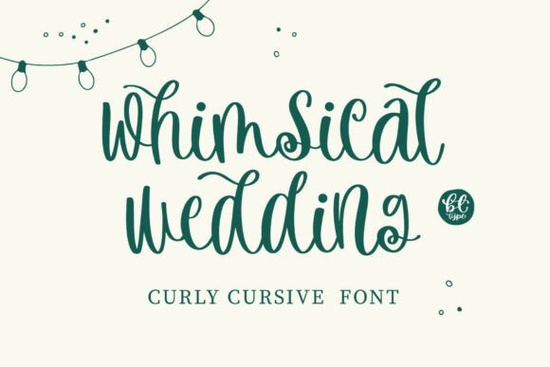
If you're working on wedding invitations, baby shower cards, or any design that calls for a cheerful, hand-lettered vibe, the Whimsical Wedding Font might be just what your project needs. This sweet cursive script blends playful energy with elegant curves think tight loops, bouncy letterforms, and terminals that curl like ribbons. It’s not overly formal, but it still feels special, making it ideal for joyful occasions where warmth and personality matter more than rigid tradition.
What sets this font apart is how effortlessly it adds charm without looking cluttered. The letters flow together naturally, mimicking real handwriting while remaining highly legible even at smaller sizes. That balance makes it especially useful for crafters creating printable stationery, small businesses designing custom greeting cards, or print-on-demand sellers building themed product lines.
Where does the Whimsical Wedding Font work best?
You’ll find this typeface shines in projects that celebrate life’s happy moments:
- Wedding stationery: From save-the-dates to place cards, its lighthearted flair complements modern rustic, boho, or garden-themed weddings.
- Baby announcements and nursery decor: The soft curves feel gentle and inviting perfect for welcoming little ones.
- Children’s books or party invites: Its bouncy rhythm reads as fun and friendly, not stiff or corporate.
- Handmade gift tags or DIY crafts: Pair it with watercolor illustrations or floral motifs for an extra touch of whimsy.
Because it includes PUA (Private Use Area) encoding, accessing swashes, alternates, and decorative glyphs is straightforward you won’t need special software or workarounds. Just open your design tool of choice, and those extras are ready to use.
How does it compare to other script fonts?
Not all cursive fonts strike the same tone. If you’ve used something like the Elegant Wedding Font, you know that style leans more refined and traditional. In contrast, Whimsical Wedding is intentionally upbeat and youthful. For projects needing a bit more weight or boldness, you might consider the Thick Font or the ThickLoved Duo Font, which offer stronger presence while keeping a handwritten feel.
On the lighter side, if you’re into tracing or educational designs like worksheets for kids the Curvsive Tracing Font gives you clean, traceable letterforms. And for duo-style versatility (with both regular and alternate versions), the Beetle Duo Font provides flexibility across multiple use cases.
Each of these serves a different mood, but Whimsical Wedding fills a specific niche: designs that should feel happy, not just pretty.
Is it beginner-friendly?
That said, avoid using it for long paragraphs or body text it’s a display font first and foremost. Stick to headlines, names, short quotes, or accent words to let its personality shine without overwhelming your layout.
- ✅ Check if your project needs uppercase-only styling this font’s strength is in lowercase and mixed-case scripts.
- ✅ Pair it with a clean sans-serif (like Montserrat or Lato) for contrast and readability.
- ✅ Test print a sample if using for physical products some delicate curls may need slight thickening at very small sizes.
For designers who want their work to feel personal, joyful, and full of heart, the Whimsical Wedding Font offers an accessible way to add handmade warmth without spending hours illustrating custom lettering.